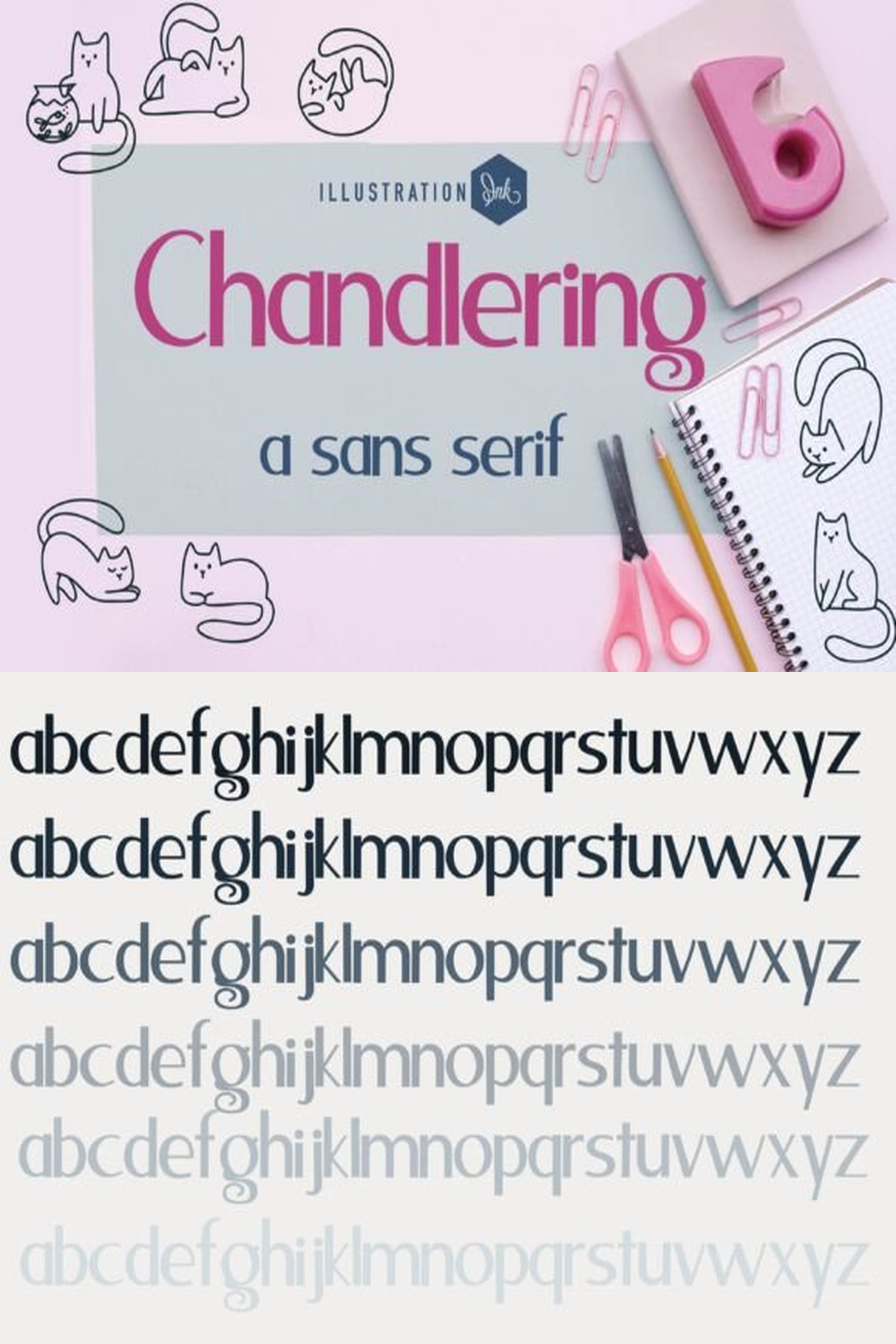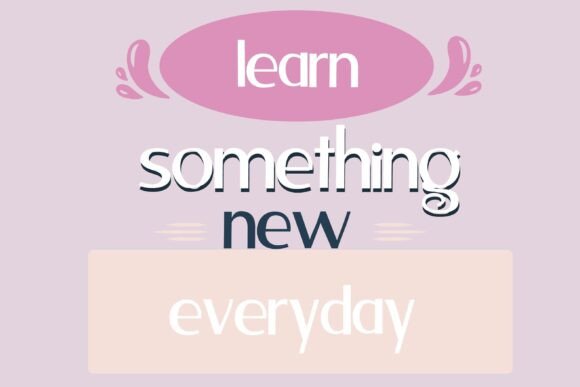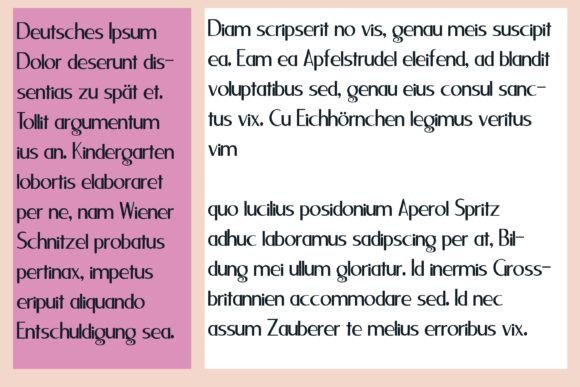
Chandlering Font: Playful Sans Serif for Cute DIY Projects
About the Chandlering Font
From logos to headlines, the Chandlering Font is the perfect choice for making a lasting impression. This hand-crafted sans serif is squatty and a bit modern.